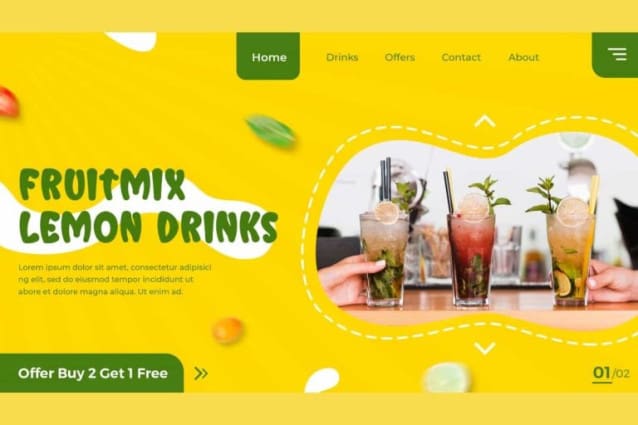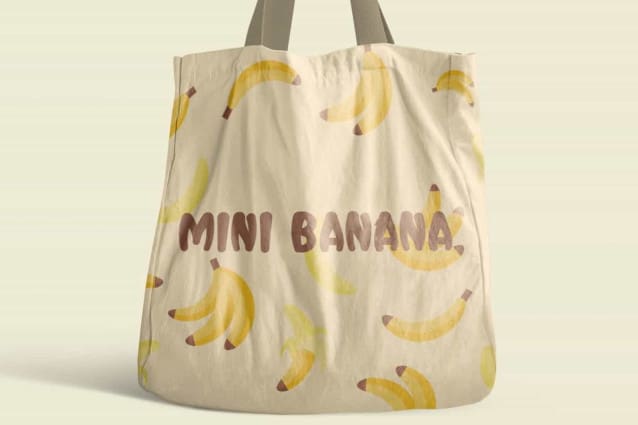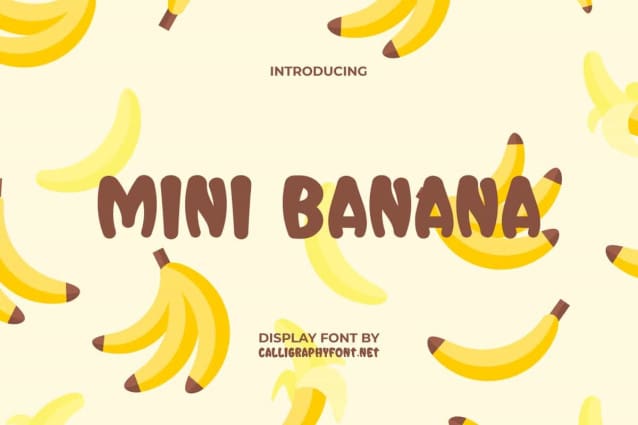
Mini Banana Font
Mini Banana Font is a cute and catchy display font. This font is bold and short, like representing a small banana ready to be eaten. It will be good to complement any project design, such as brand image, brochure, cover, custom design, flyer, invitation, label, marketing material, menu board, poster, signage, stationery, screen print, sticker, thank you card, title, website page, and many more!
Mini Banana Font can make each of your designs look funny with its style, so it can be used by various industries, such as advertising, bakery and pastry, content creator, event or festival, fashion, food and beverages, graphic design, handicraft, interior design, kids stuff, printing, publishing, restaurant, etc.